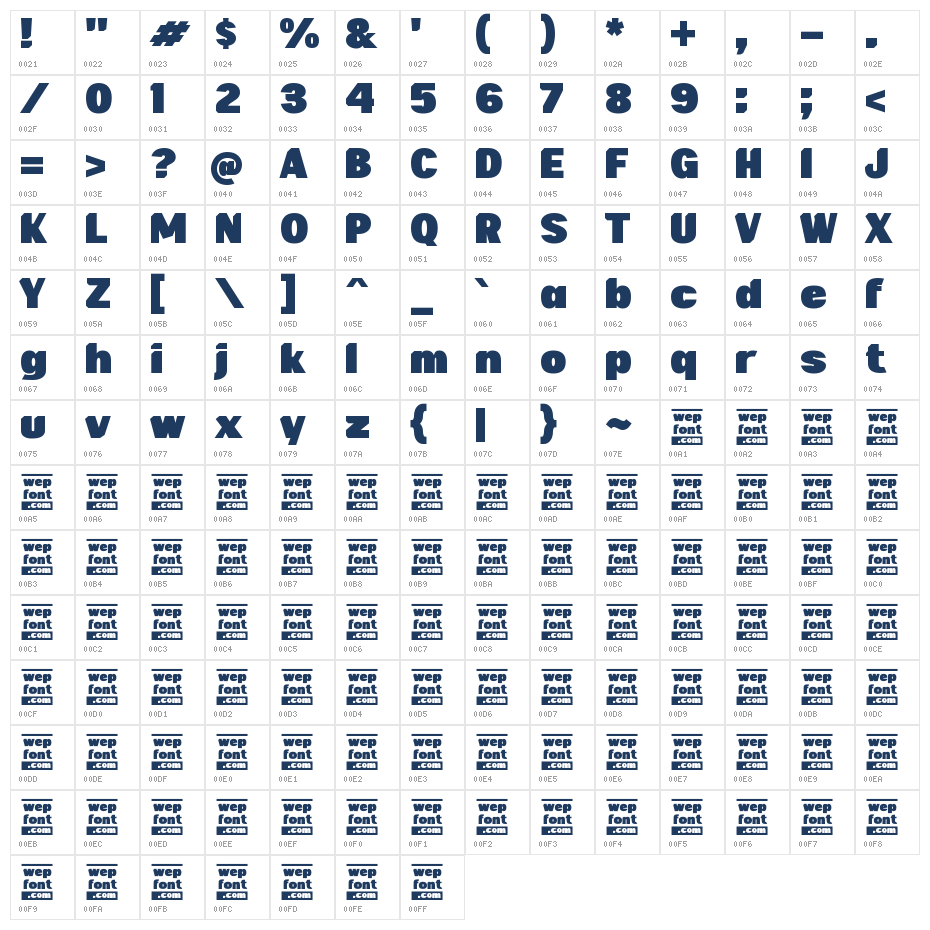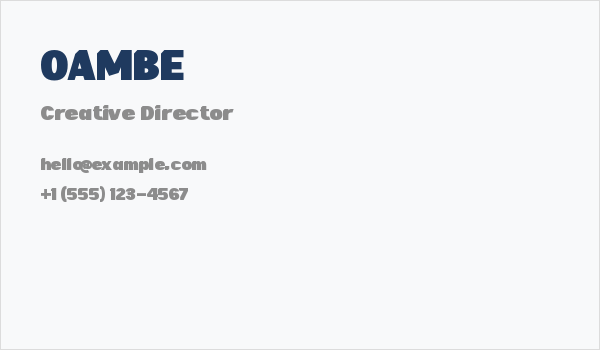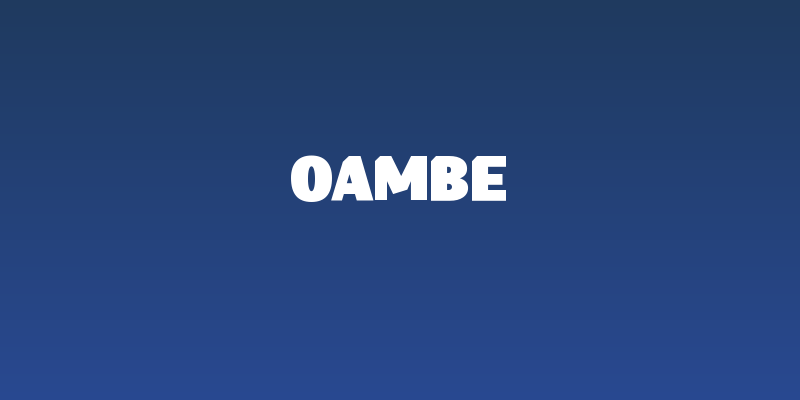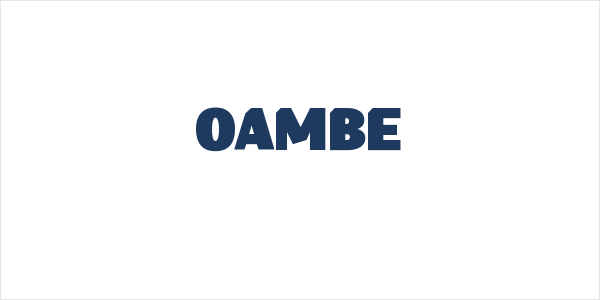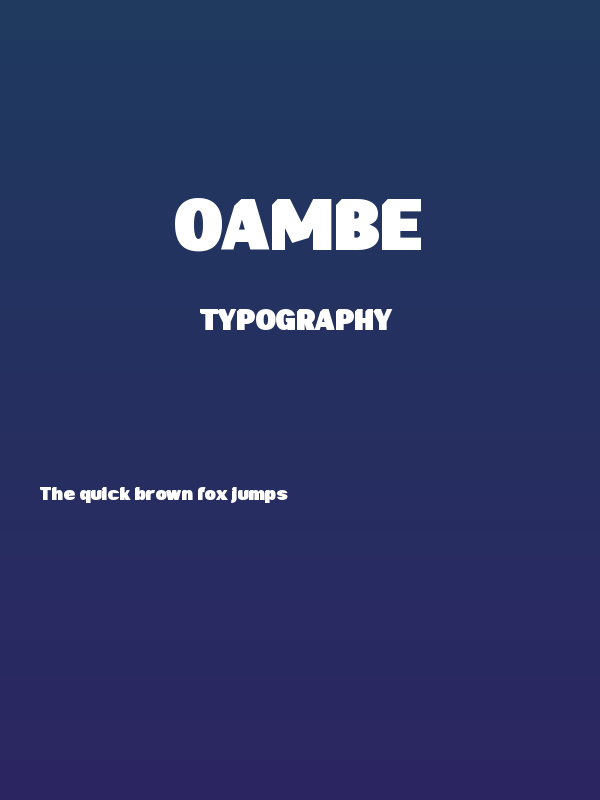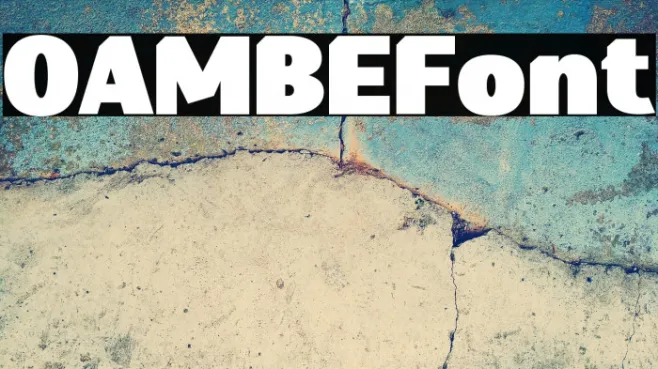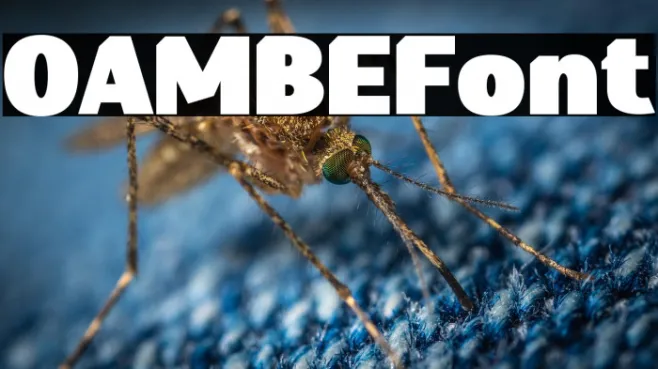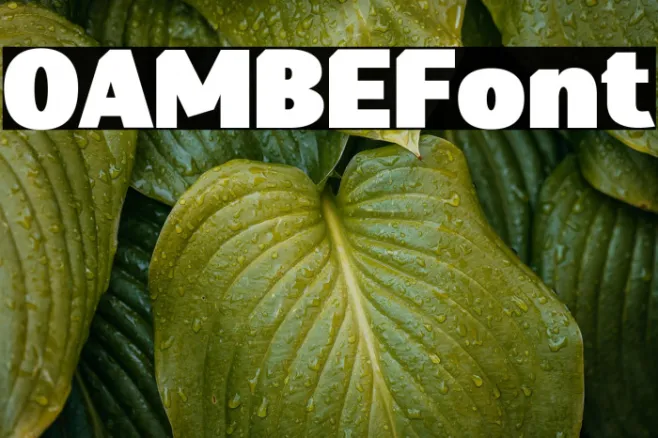
OAMBE Font
OAMBE Description
Bold, chunky sans-serif font with a playful and modern style, characterized by thick strokes and rounded edges.
| Overall Style | Modern, Bold, Playful |
| Use Case | Headlines, Display text, Logos |